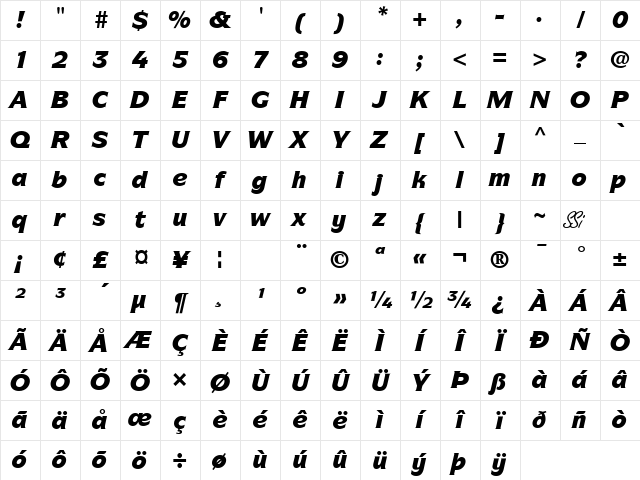
Symbol Black SSi Black Italic
Design Context for Symbol Black SSi
Symbol Black SSi is a composed and adaptable typeface that performs quietly and consistently across a wide range of design contexts. The slanted form adds forward momentum and visual energy.
Pro Tip: Use Symbol Black SSi for emphasis, pull quotes, and subheadings where its slanted energy can add rhythm to the layout.